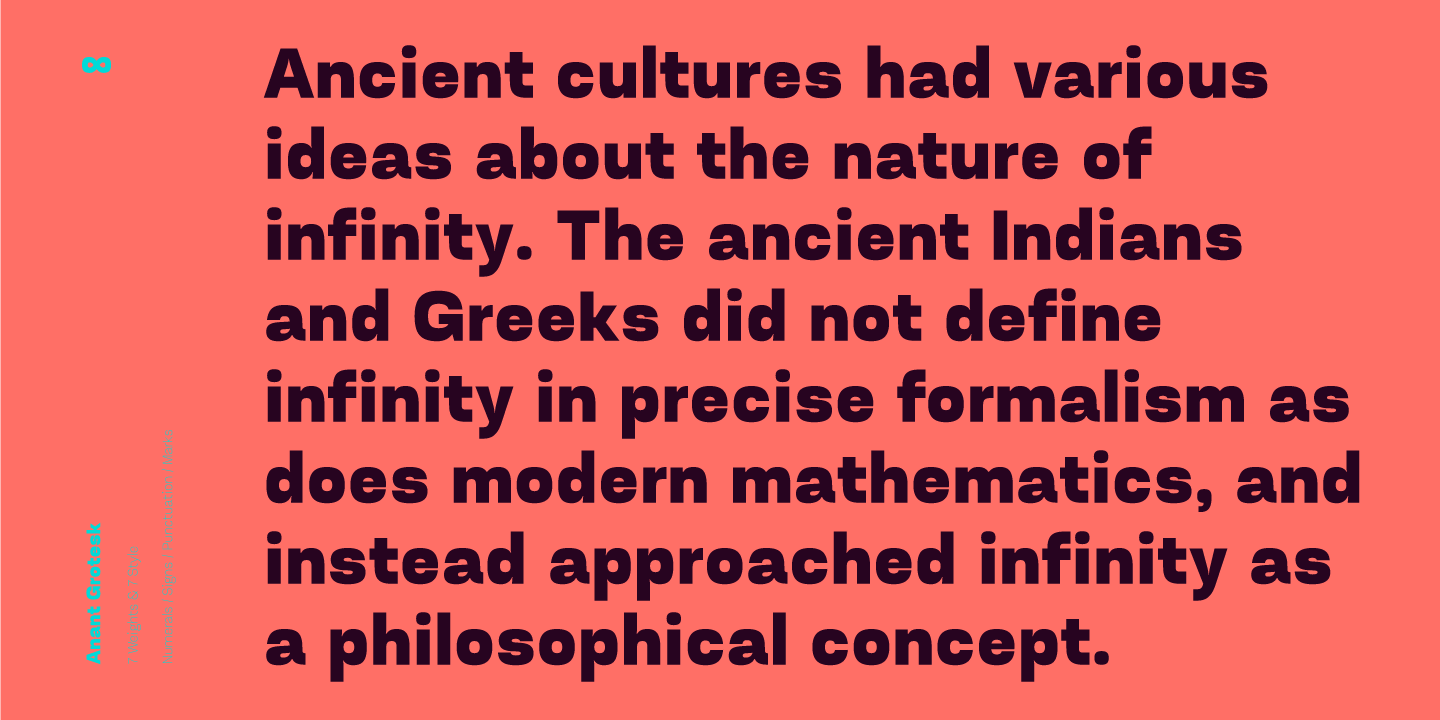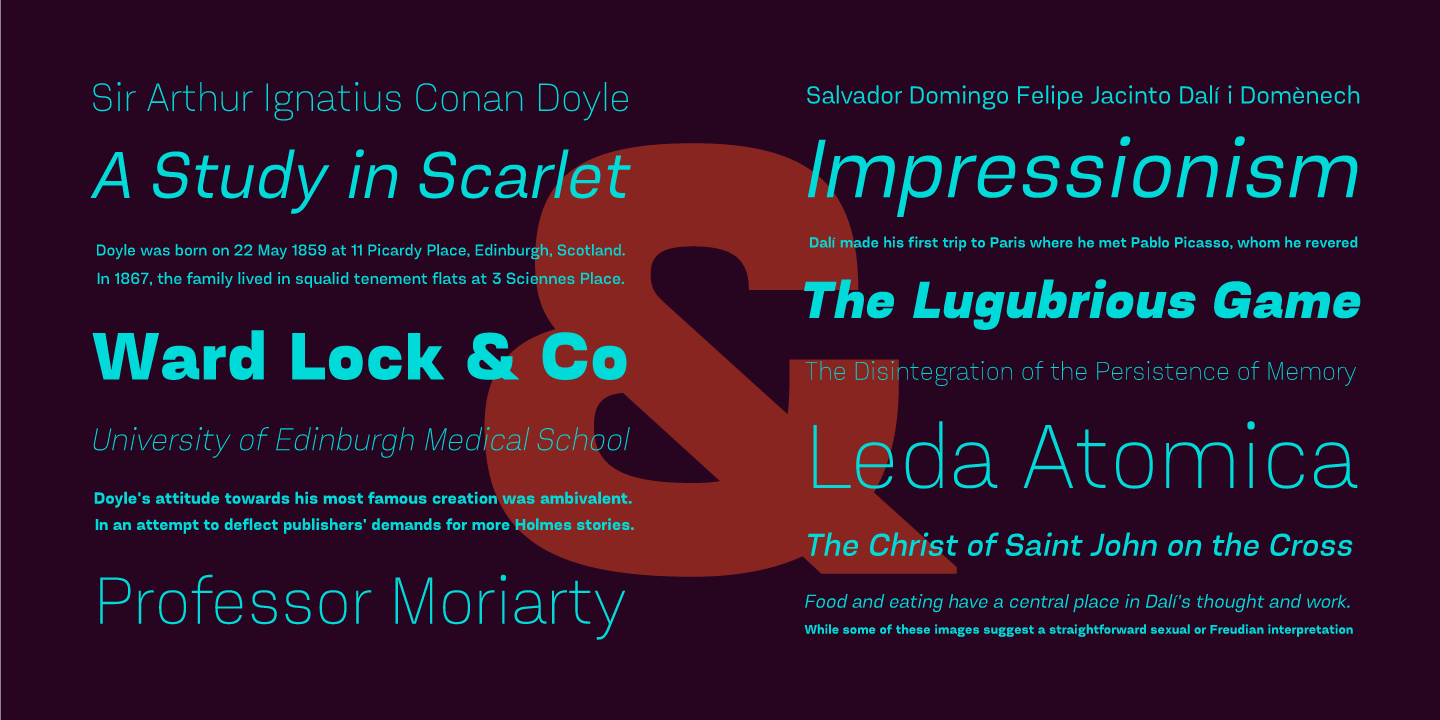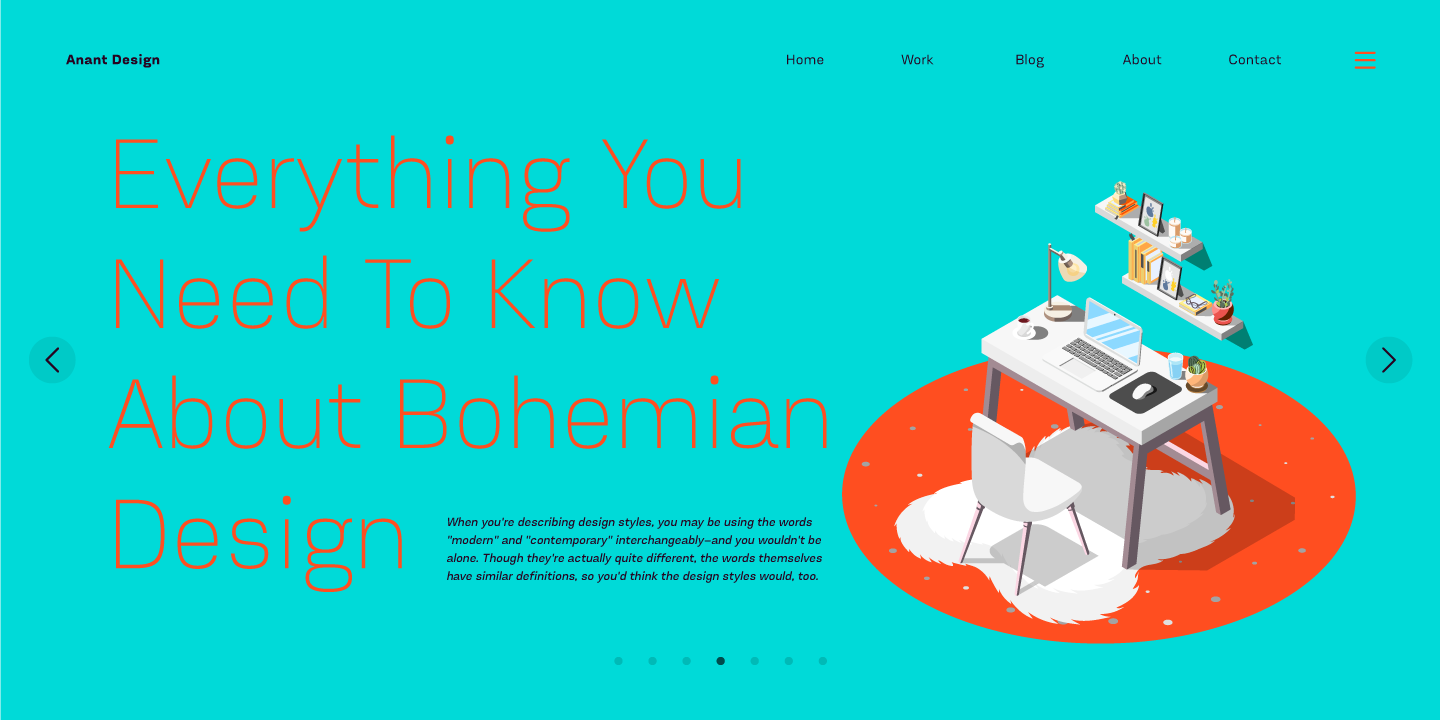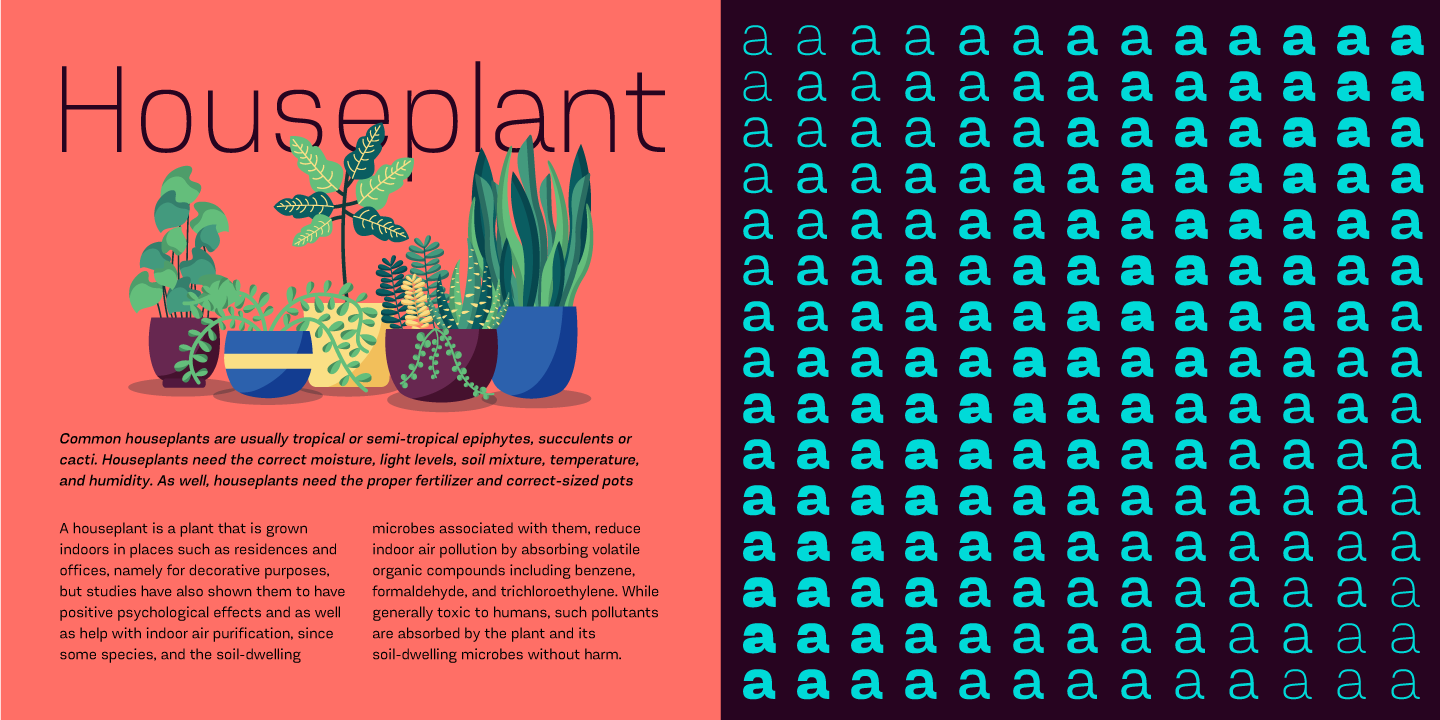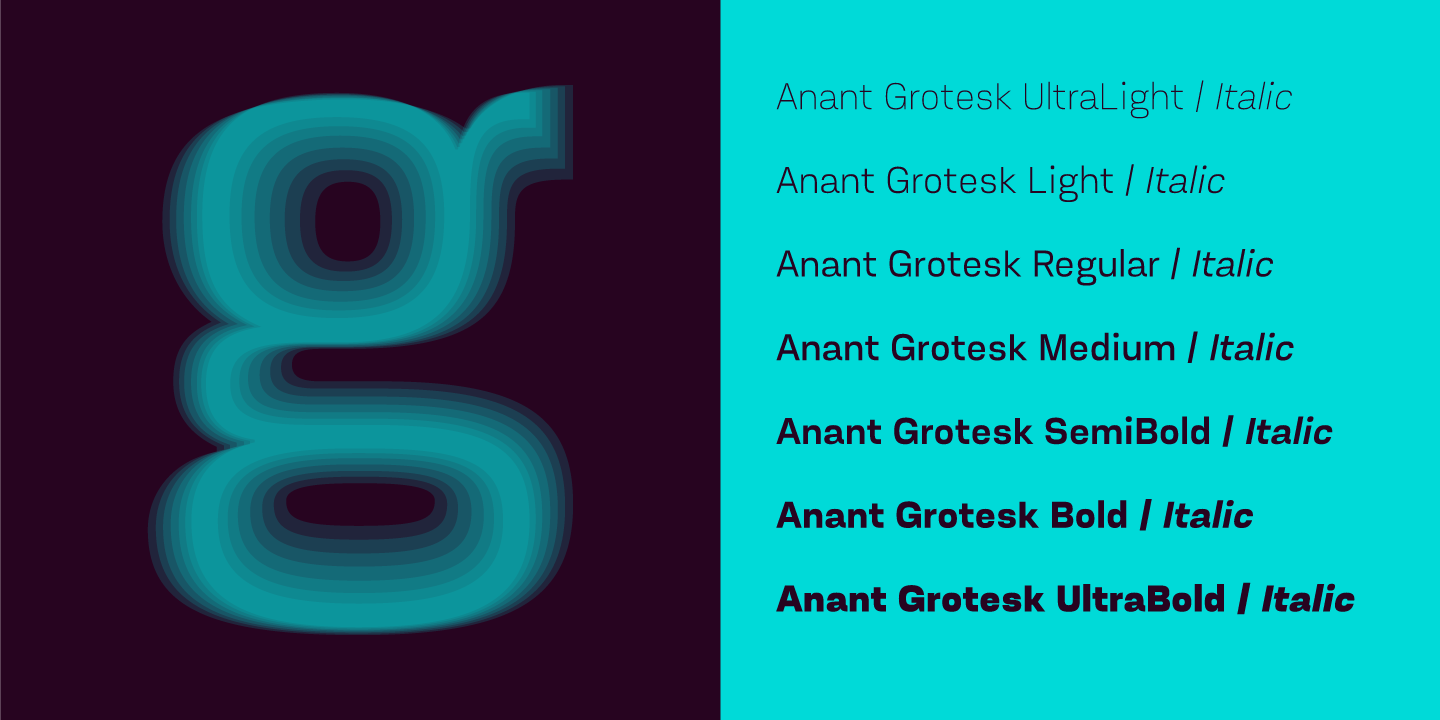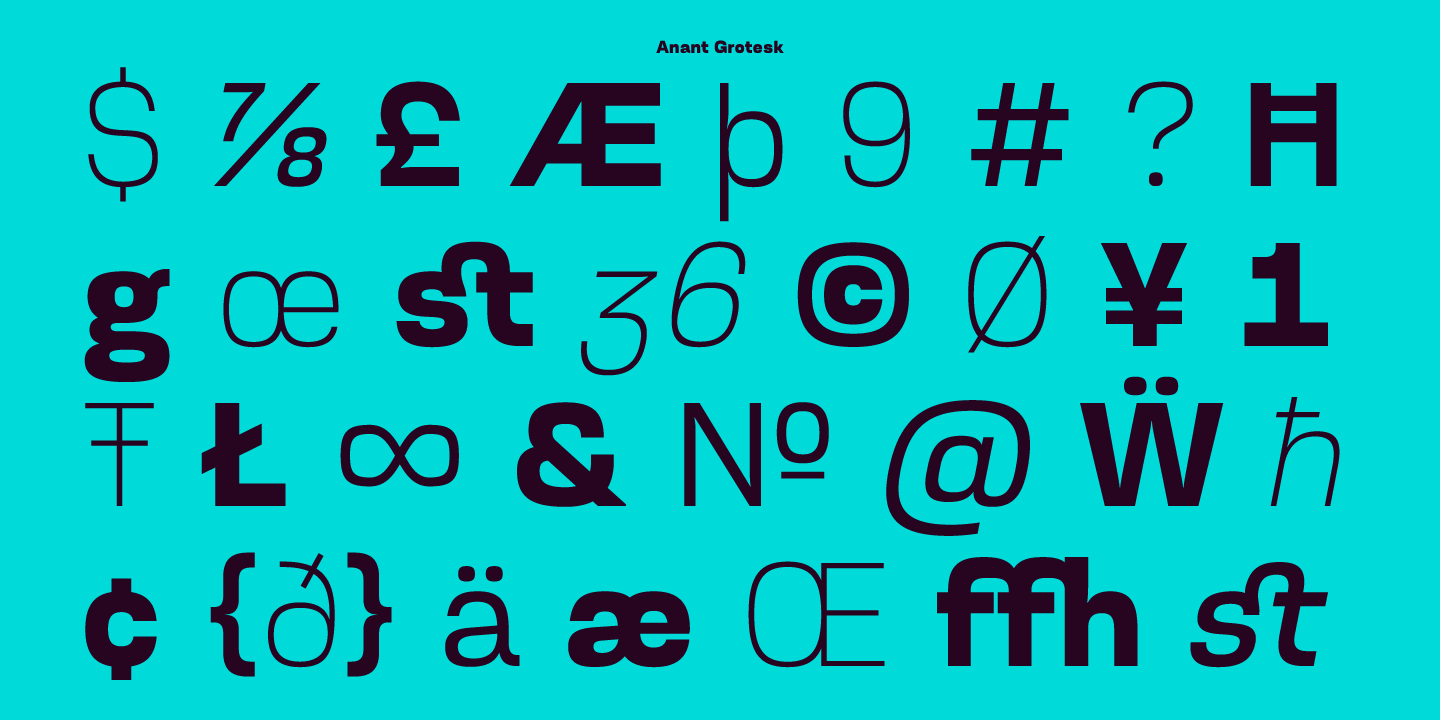
Anant Grotesk is a family of sans serif fonts which come with seven weights and seven styles, designed with squarish round shape and letterforms are precisely crafted. Anant Grotesk’s design character connects old and modern time period. The form of the Font has been optically corrected for better legibility.
Anant Grotesk has functional look, it serves all purpose of text. All weights are well suited for longer texts.
Anant Grotesk is equipped for professional typography. The OpenType Fonts have an extended character set to support Central and Eastern European as well as Western European languages.